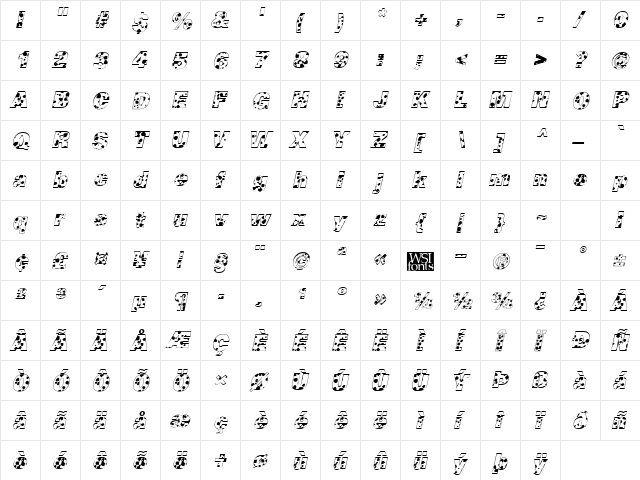
Cow-Spots Italic
Design Context for Cow-Spots Typeface
Cow-Spots is a composed and adaptable typeface that performs quietly and consistently across a wide range of design contexts. The slanted form adds forward momentum and visual energy.
Pro Tip: Try Cow-Spots for annotation and caption copy alongside an upright companion — the contrast in angle creates a dynamic but ordered typographic system.